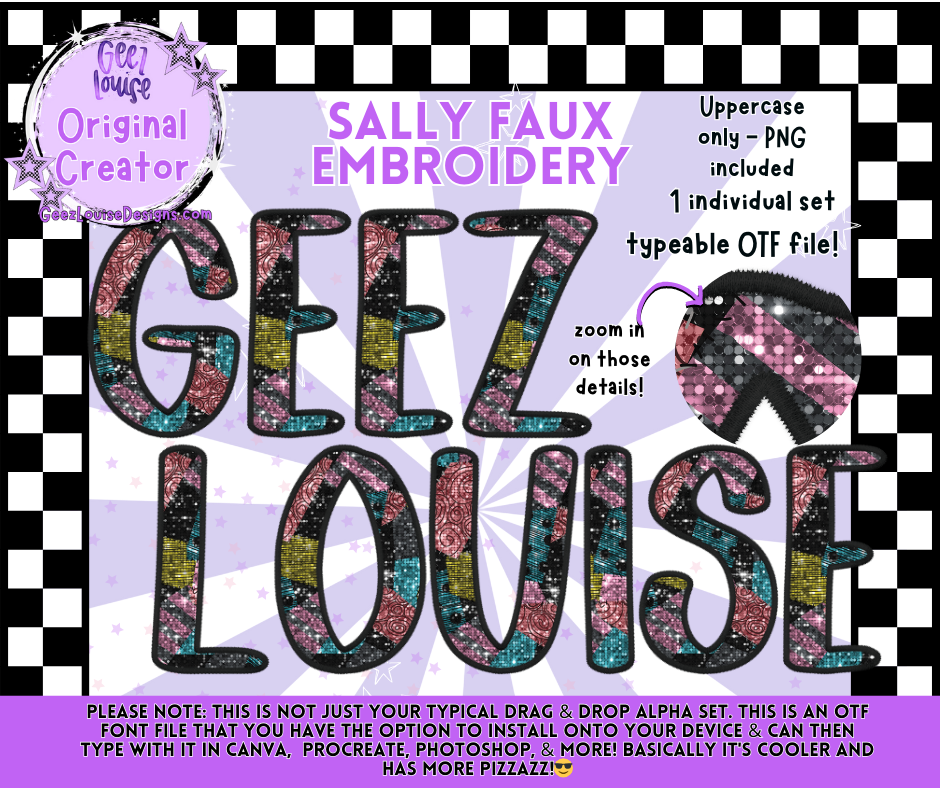
Sally Faux Embroidery Alpha Font | OTF & PNG Letters
🖤 Bring a touch of spooky whimsy to your designs with the Sally Faux Embroidery Alpha Font! 🖤
Inspired by patchwork vibes and faux stitched details, this alpha set features bold colors, textured embroidery effects, and a fun, eclectic style perfect for Halloween, gothic, or alternative designs.
1 Individual Set – designed with patchwork-style textures and faux embroidery edges.
Unique patchwork look with bold, spooky-inspired color details.
Faux embroidery edges give a textured, handmade aesthetic.